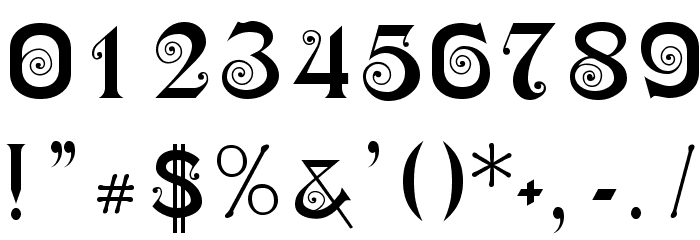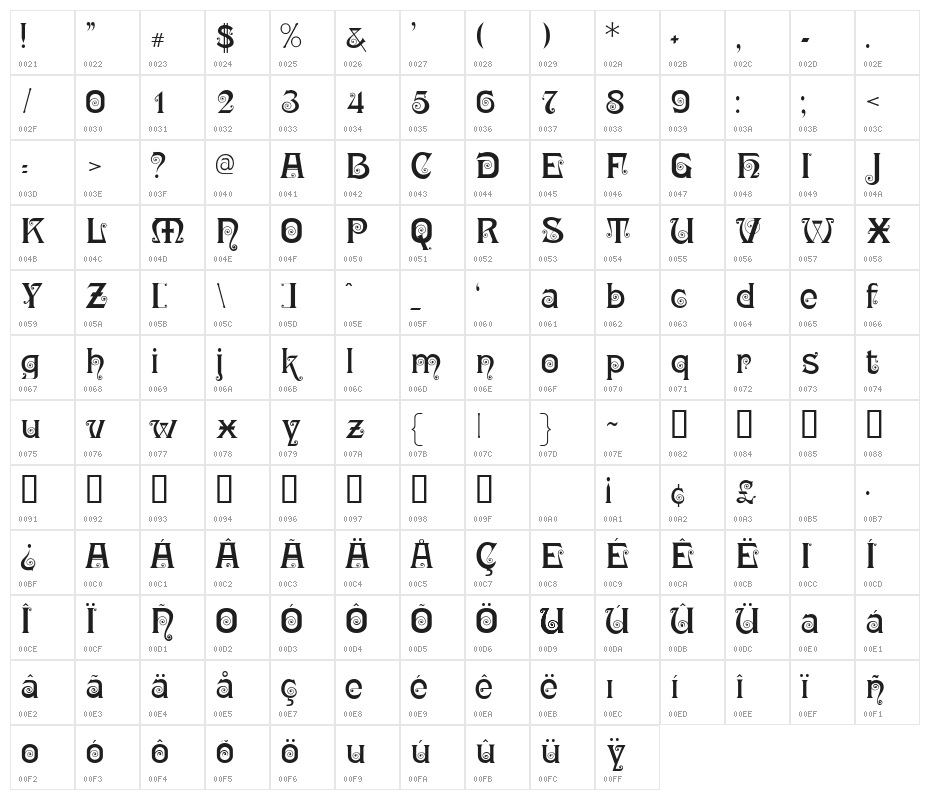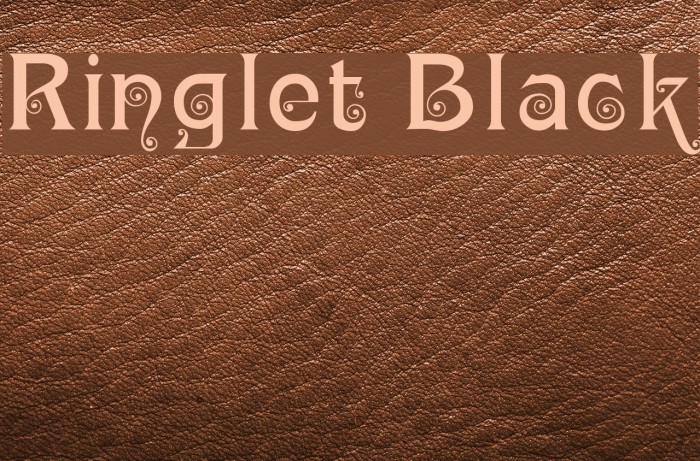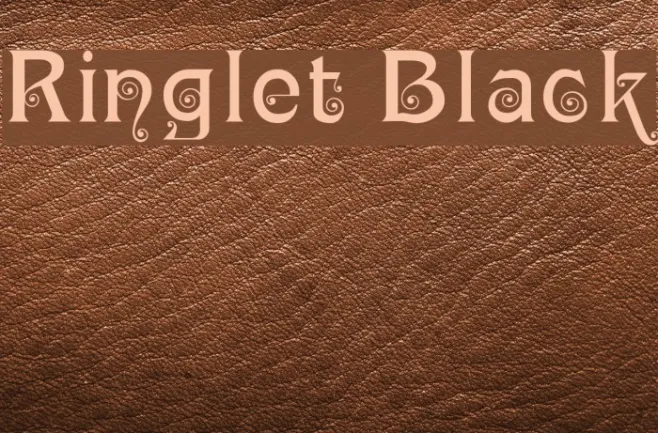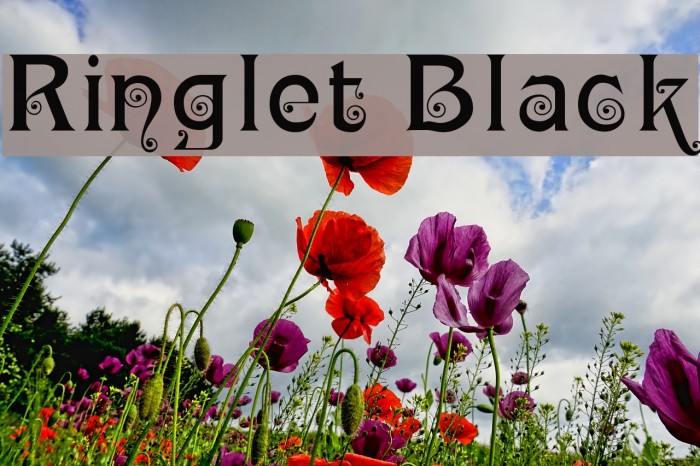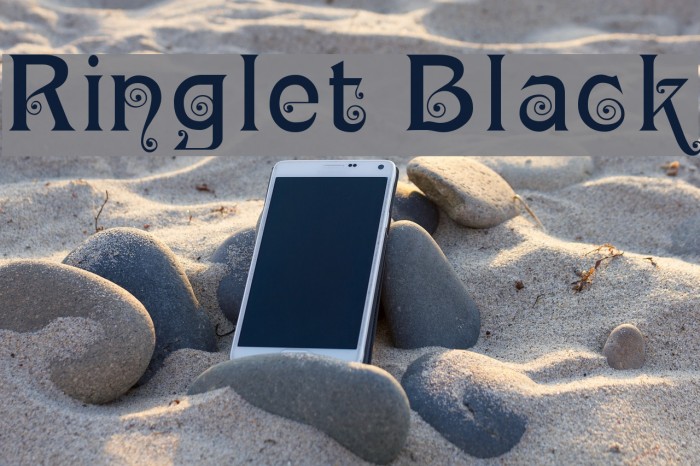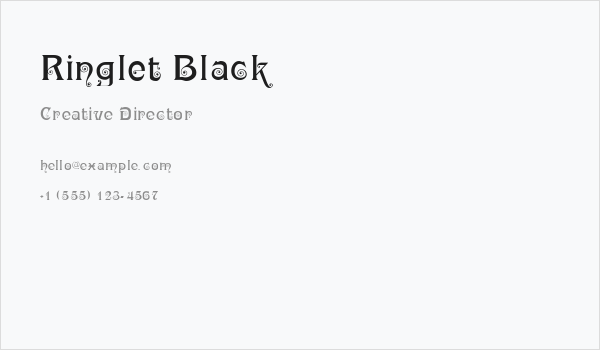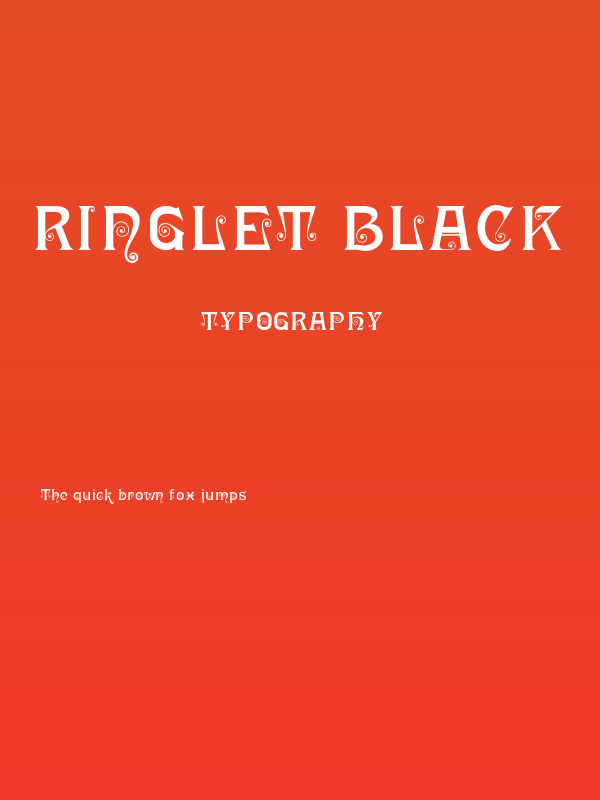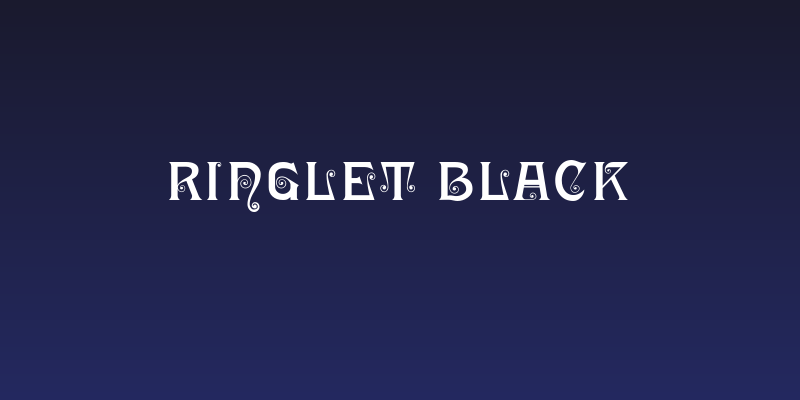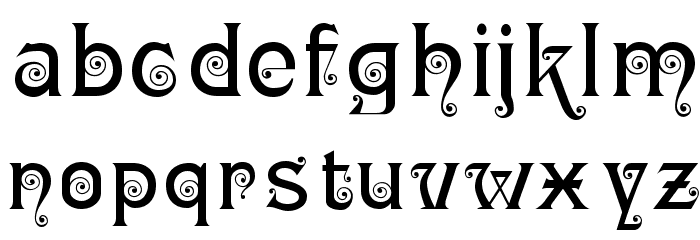
Ringlet Black Font
Ringlet Black Description
This font features a whimsical and decorative style, characterized by its unique spiral embellishments on each character. The bold, playful design incorporates swirling elements that give it a lively and dynamic appearance. The uppercase and lowercase letters maintain a consistent theme, with each character showcasing intricate curls and loops. Numbers and special characters are equally ornate, adding to the font's overall charm. The bold strokes and high contrast between thick and thin lines enhance its visual impact, making it suitable for eye-catching designs.